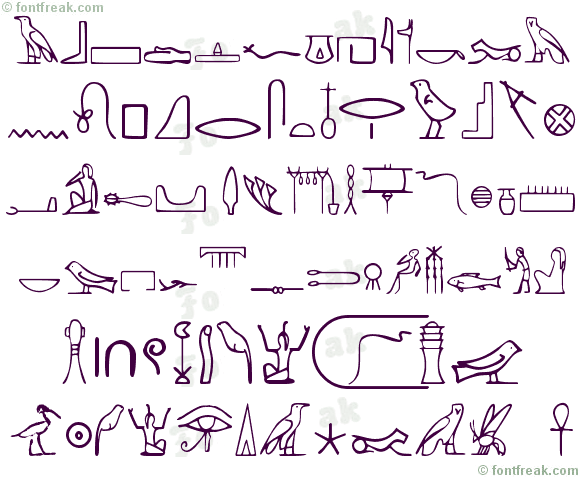
Nahkt
About Nahkt
The Nahkt font by Match Software is a unique display typeface that captures attention with its distinctively whimsical and artistic flair. Designed by C. Michel Bujardet in 1994, this shareware font features a playful mix of decorative elements and light-hearted strokes that make it an excellent choice for creative projects. The letters boast a medium stroke weight with subtle contrast, ensuring readability while maintaining an engaging aesthetic. The spacing is well-balanced, allowing each character to breathe and contribute to the overall charm of the font.
Nahkt is particularly suited for a variety of specialized applications. Its artistic style makes it ideal for wedding invitations, where a touch of elegance is essential. Additionally, it can be effectively utilized in movie posters, drawing attention to titles and taglines with its playful design. Restaurant menus can also benefit from the Nahkt font, as its unique character can enhance the dining experience, adding a creative twist to the presentation of dishes. Furthermore, the font can serve as a captivating choice for greeting cards and promotional materials, allowing small business owners to stand out in a competitive market.
The target audience for the Nahkt font includes graphic designers, small business owners, and content creators who are looking for a distinctive typeface that can elevate their projects. Whether used in digital or print formats, this font exudes a personality that resonates with creativity and innovation.
What sets the Nahkt font apart is its ability to blend playfulness with sophistication, making it a versatile option for various design needs. The free download option gives users the opportunity to explore its potential without commitment, making it a must-try for anyone in search of a fresh and engaging typographic solution.